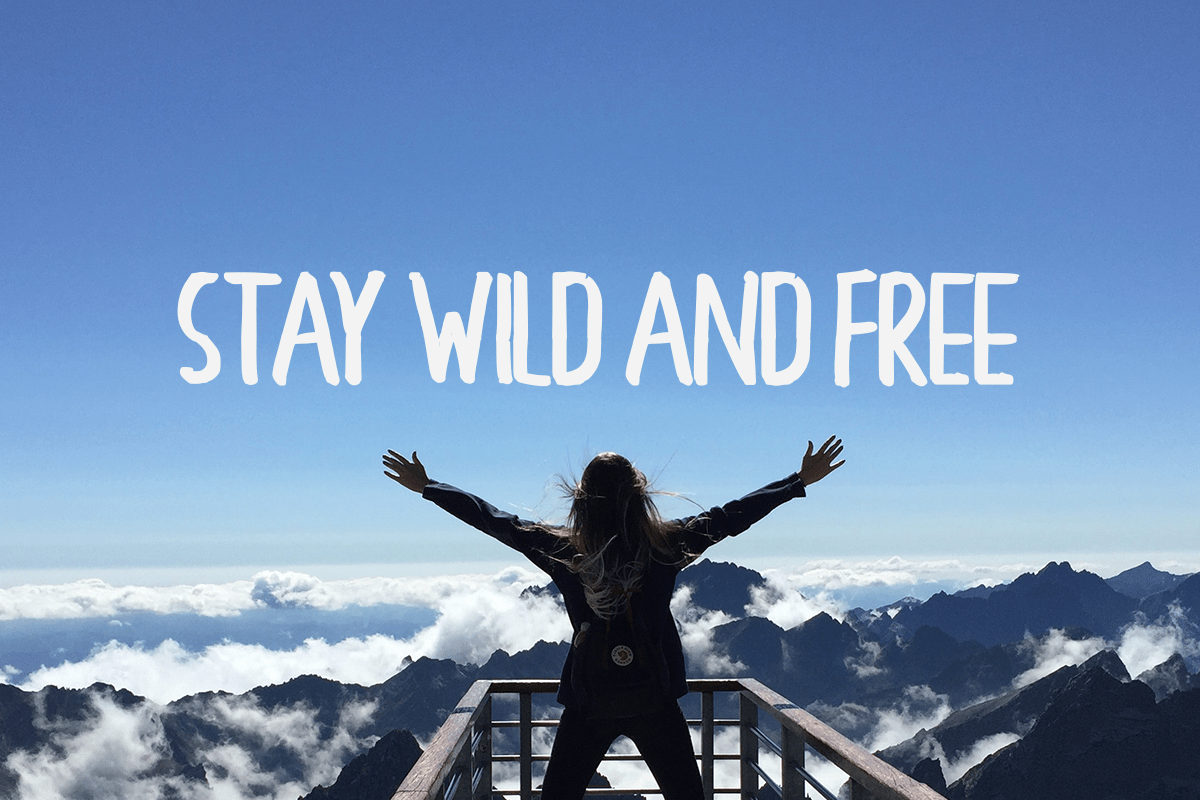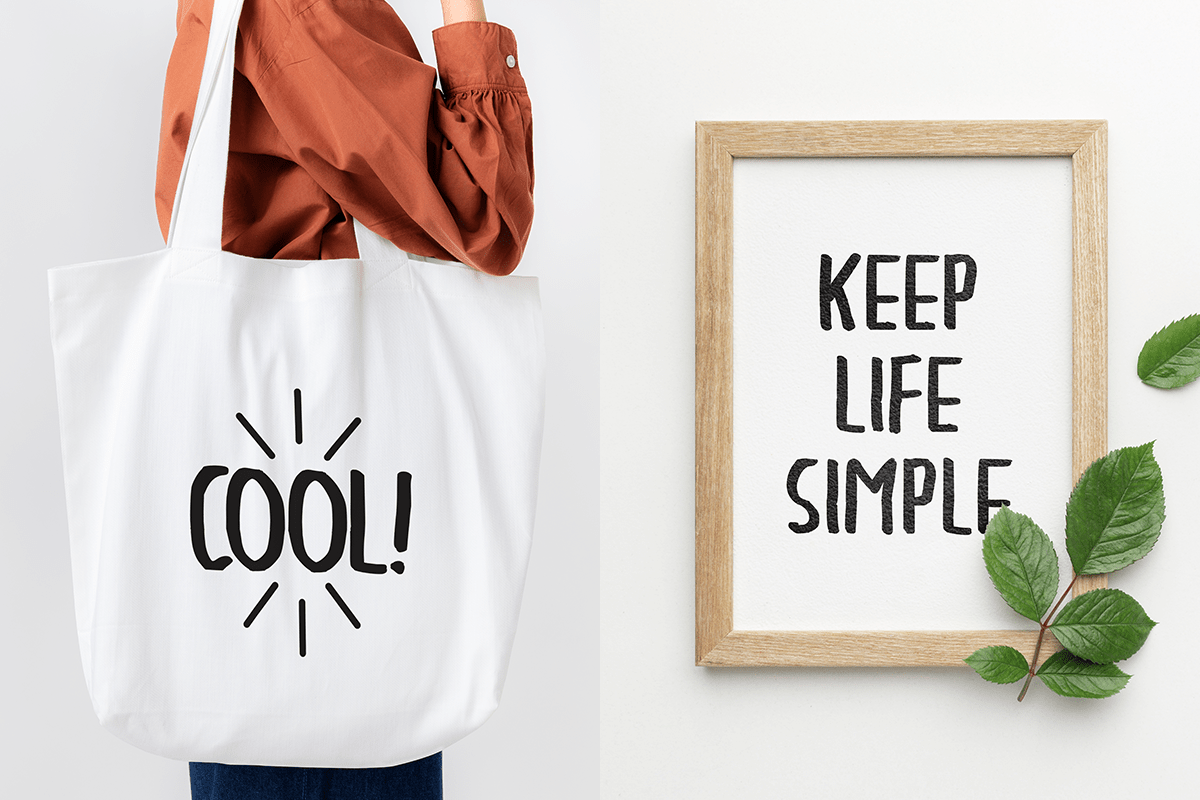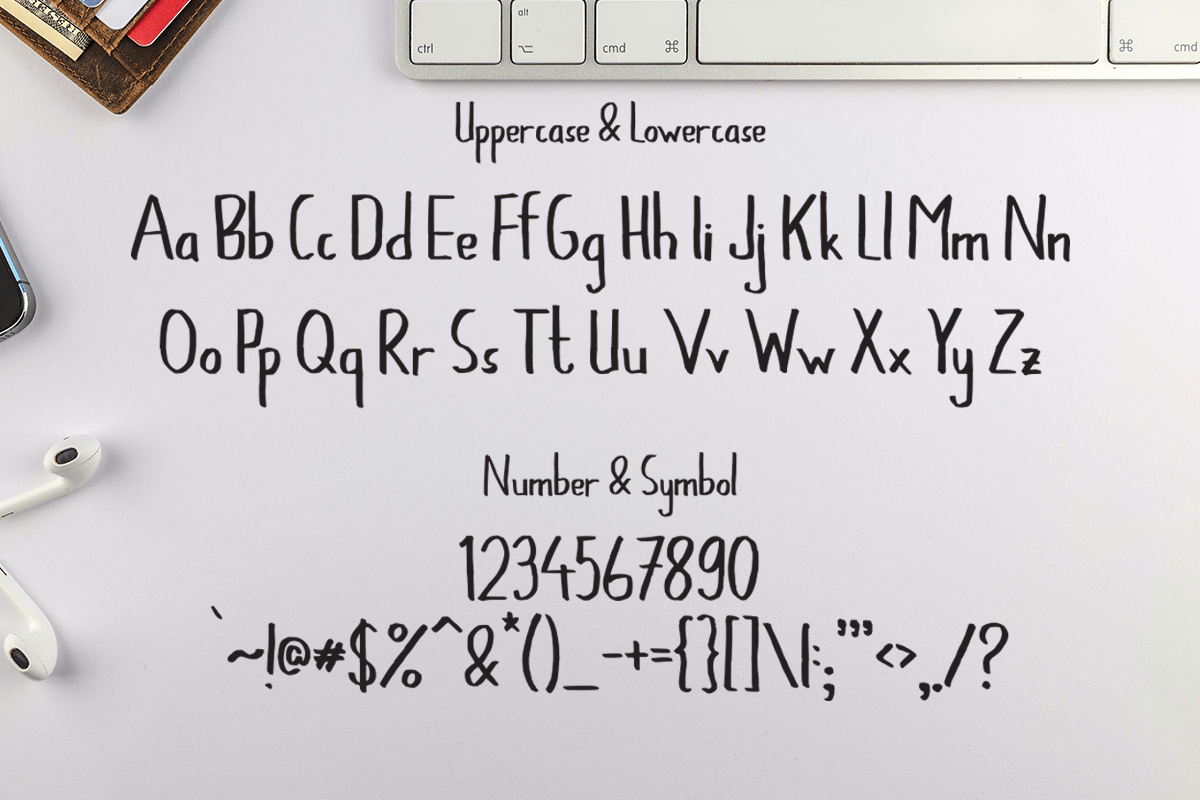
Zoro Font
Zoro Display Font
This font is a handdrawn font. It has an authentic texture – giving it a look as if it just left your pen. This font is especially perfect for instagram and pinterest quotes.